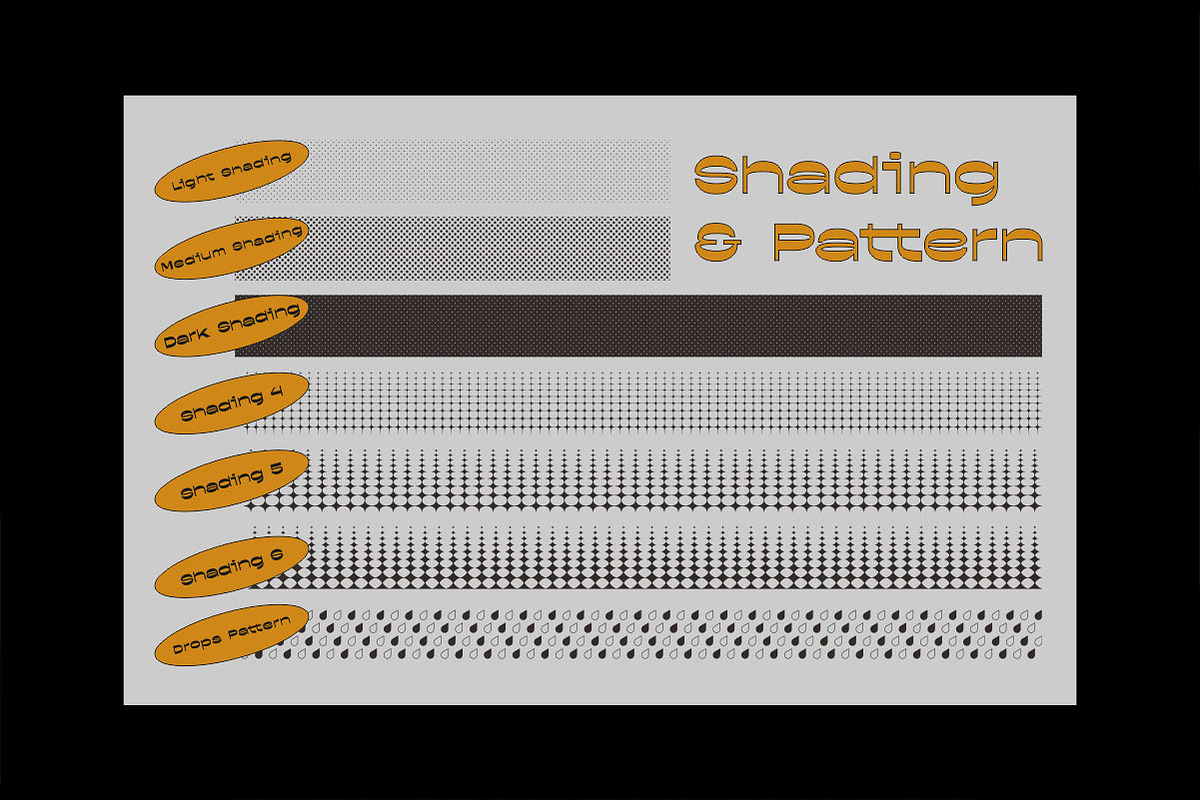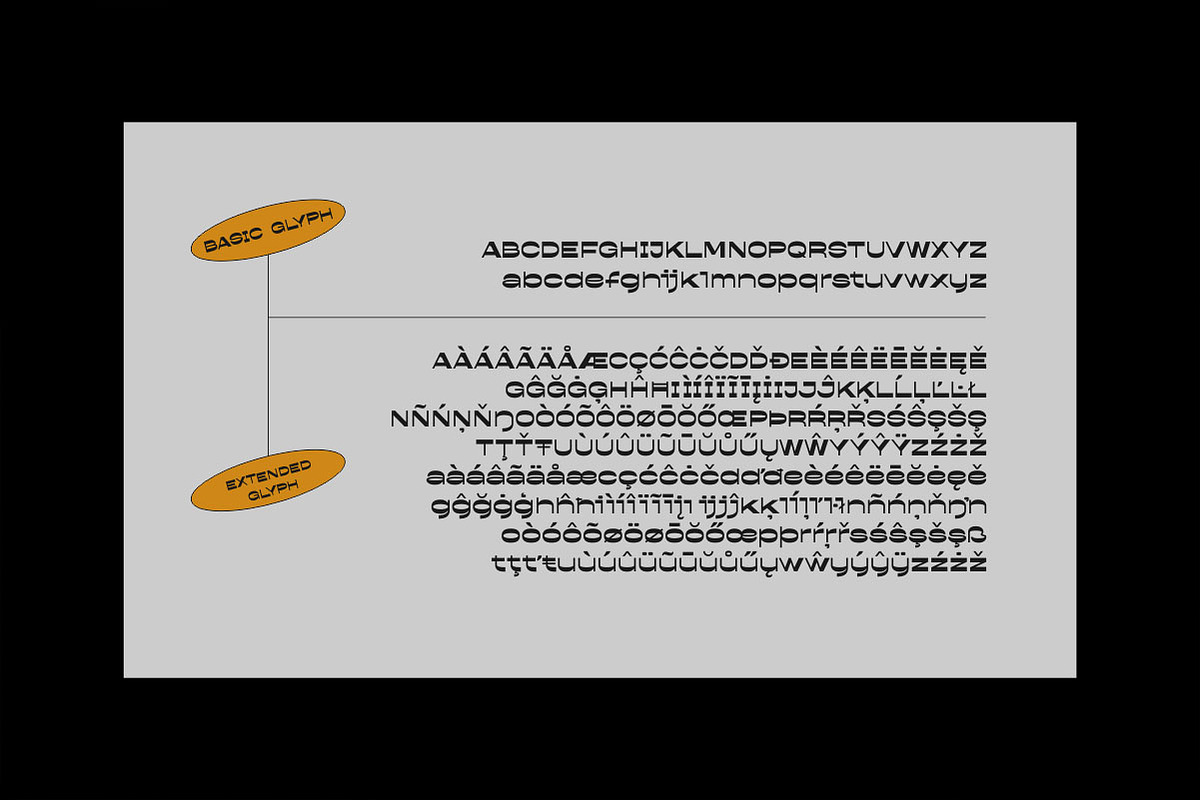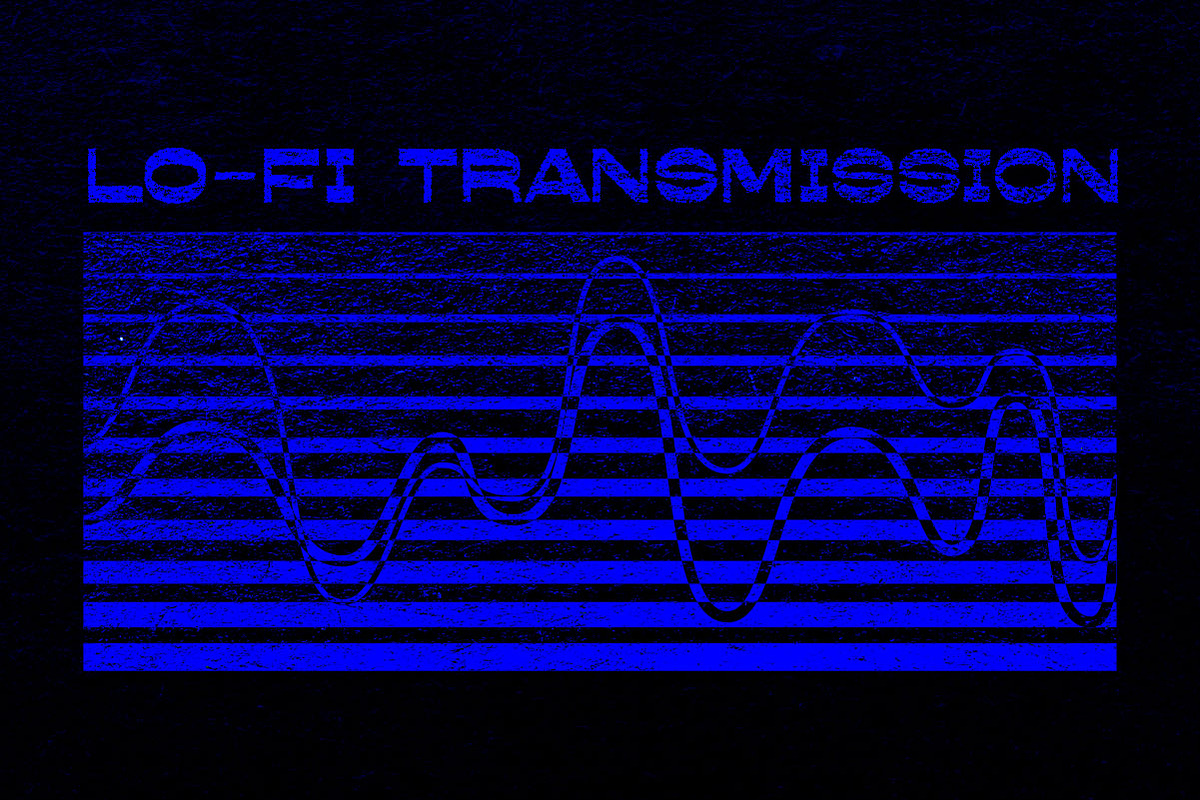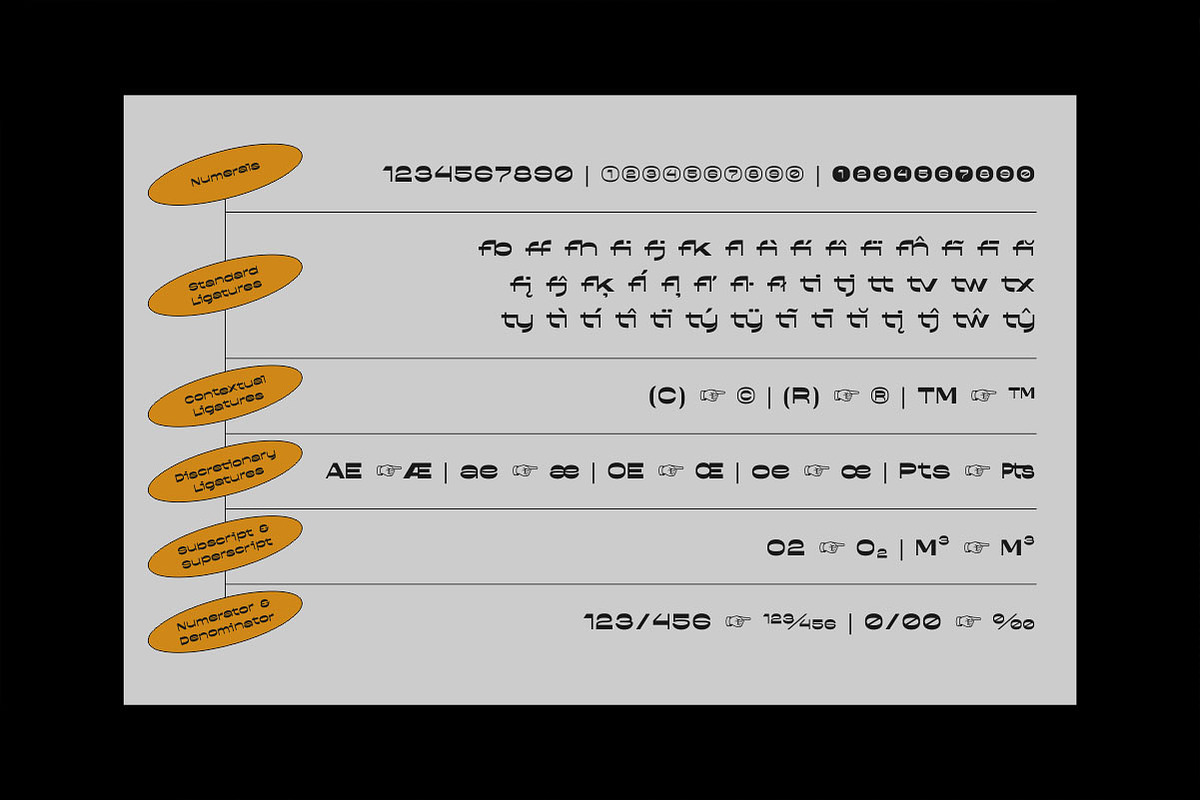
Quartro - a classic reverse contrast
Quartro is a classic reverse contrast modernist display font and geometrical form. this font support multi-lingual/language, consist of Latin extended-A